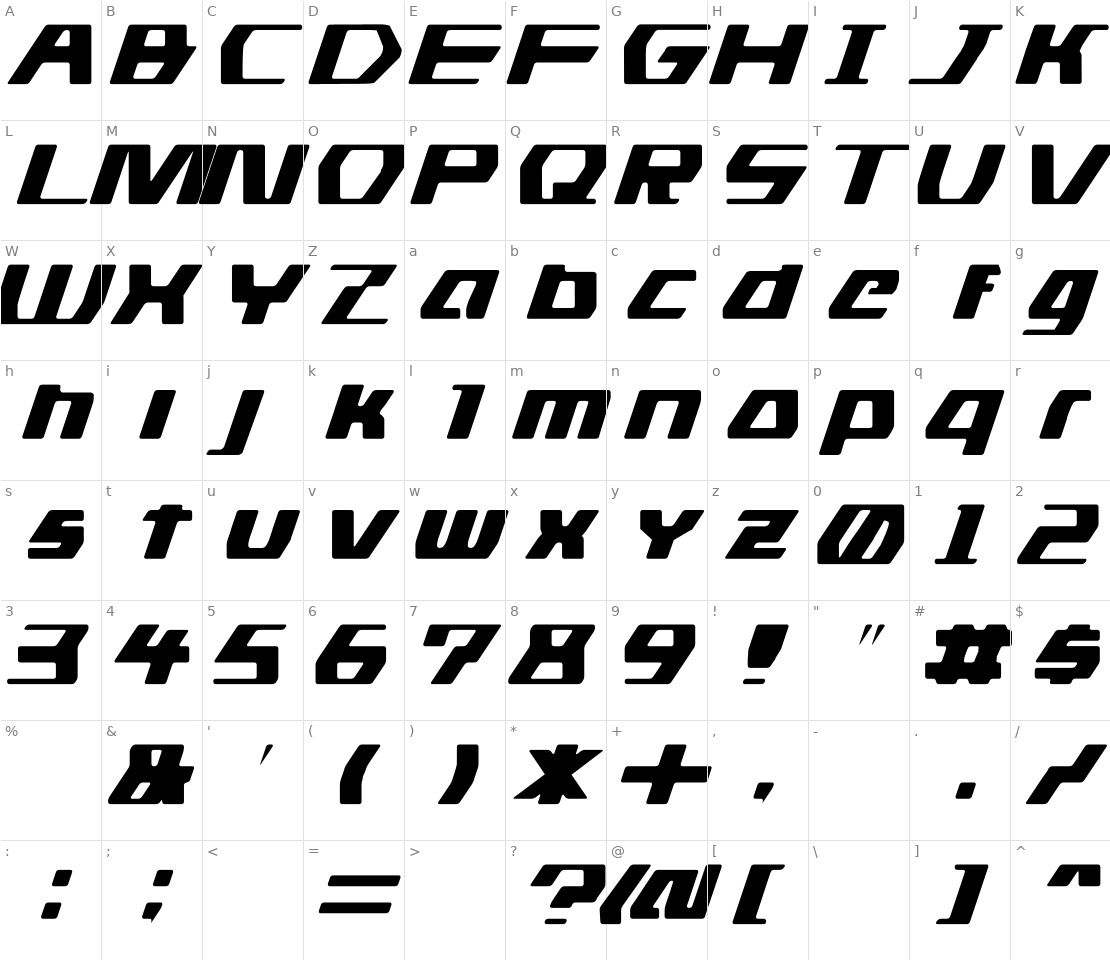
Ds Man
Ds Man is a bold, wide italic display face from Iconian Fonts with a strong forward lean that conveys speed and momentum. The letterforms are chunky and futuristic, with angled cuts and generous proportions that fill space aggressively. Built for headlines, title screens, and tech-themed branding where you want type that looks like it's already moving.